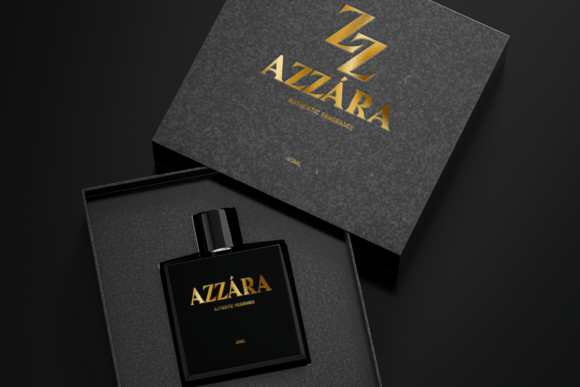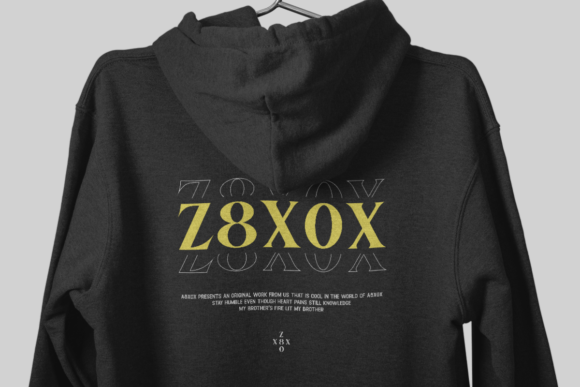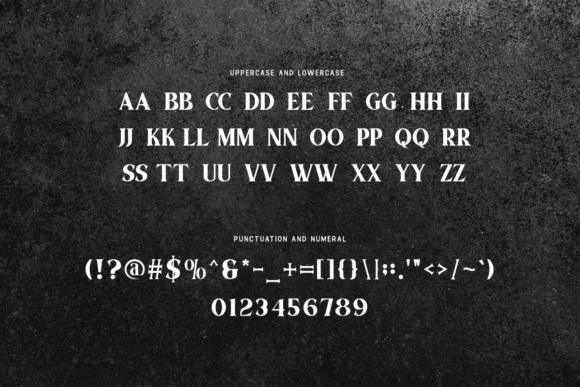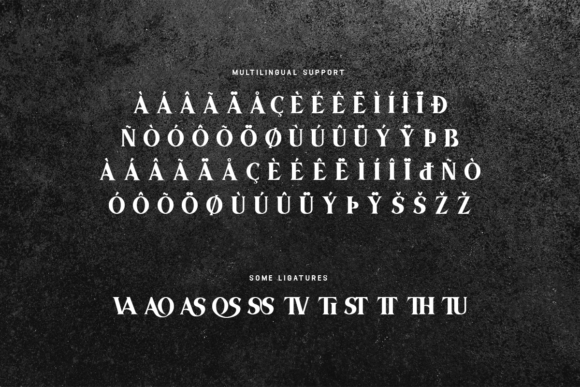
Aostiva Font: Elevate Your Designs with Timeless Elegance
In the world of typography, few fonts manage to strike a balance between classic sophistication and modern flair. Aostiva Font is one such exceptional typeface that seamlessly blends traditional elegance with contemporary refinement. This stylish serif font has been meticulously crafted to bring a sense of luxury and poise to any design project, making it an indispensable asset for designers and crafters alike.
The Essence of Aostiva Font
Aostiva is more than just a font; it’s a statement of style and sophistication. Its refined serifs and well-proportioned letterforms are designed to evoke a sense of timeless beauty, making it perfect for projects that demand a high level of elegance and refinement. Whether you’re working on branding, editorial content, or luxury designs, Aostiva brings a touch of class that elevates your work to new heights.
Key Features of Aostiva Font
- Classic Elegance: Aostiva’s serif design pays homage to traditional typography, offering a sense of nostalgia and timelessness that is hard to achieve with modern fonts.
- Modern Sophistication: Despite its classic roots, Aostiva has been crafted with a modern eye, ensuring it fits seamlessly into contemporary designs and trends.
- Refined Serifs: The serifs in Aostiva are carefully designed to add a level of sophistication and luxury to any text, making it stand out in a crowded design landscape.
- Well-Proportioned Letterforms: Each letter in Aostiva is meticulously crafted to ensure optimal readability and aesthetic appeal, making it perfect for both body text and headlines.
Applications of Aostiva Font
The versatility of Aostiva Font makes it suitable for a wide range of design applications. Here are some of the areas where Aostiva truly shines:
- Branding: Establish your brand’s identity with a font that exudes elegance and sophistication. Aostiva can help create a lasting impression on your audience, setting your brand apart from the competition.
- Editorial Work: Whether you’re designing a magazine, a book, or any form of editorial content, Aostiva’s readability and aesthetic appeal make it an excellent choice for body text and headlines.
- Luxury Designs: For projects that require a high level of luxury and exclusivity, such as high-end fashion, jewelry, or real estate, Aostiva provides the perfect typographic solution.
Why Choose Aostiva Font?
In a market flooded with fonts, Aostiva stands out for several reasons:
- Unique Blend of Styles: Aostiva’s unique blend of classic and modern elements makes it a versatile choice for a wide range of design projects.
- High Readability: Despite its elegant design, Aostiva maintains high readability, making it suitable for both print and digital media.
- Timeless Appeal: Unlike trends that come and go, Aostiva’s timeless design ensures it remains relevant and stylish for years to come.
Aostiva Font is a masterpiece of modern typography, offering a perfect blend of classic elegance and contemporary sophistication. Its refined serifs, well-proportioned letterforms, and versatile design make it an invaluable asset for designers and crafters looking to elevate their projects. Whether you’re working on branding, editorial content, or luxury designs, Aostiva is sure to bring a touch of timeless beauty and class to your work. Embrace the elegance of Aostiva Font and discover a new level of sophistication in your designs.
Experience the elegance and sophistication that Aostiva Font brings to the table. Elevate your designs with a touch of class and timeless beauty.